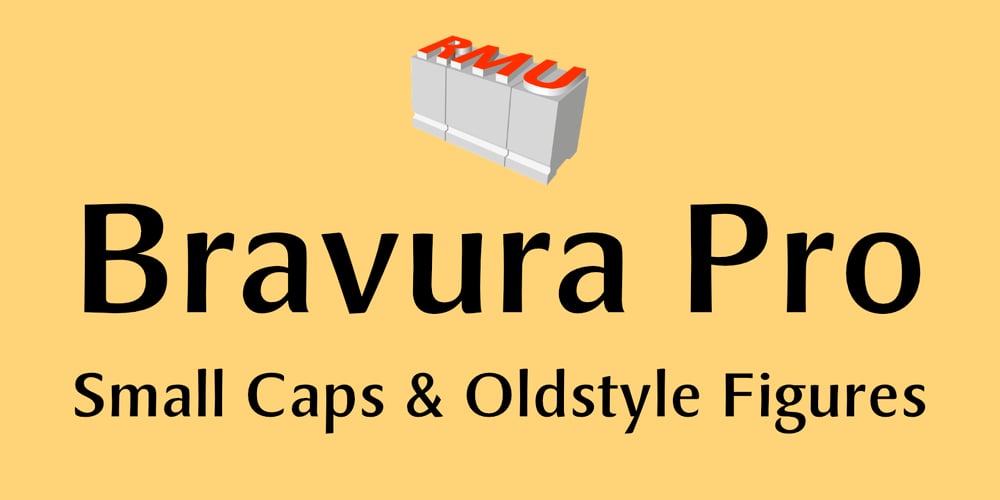
Bravura Pro Font Family was designed by Ralph M. Unger and published by RMU. Bravura Pro contains 3 styles and family package options. Inspired by Karl-Heinz Lange’s Publica, Bravura Pro is a versatile humanist sans font family with a slight calligraphic touch which makes it ideal for private correspondence as well as for body texts in magazines and books. All styles contain small caps and oldstyle figures.